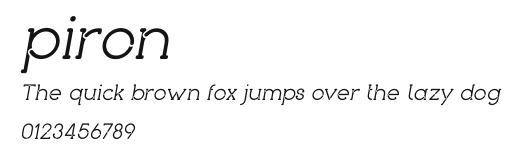
• Font Name: piron
• Full Font Name: piron-Italic
• PostScript Name: piron-Italic
About piron.otf
piron.otf is a modern, elegant sans-serif font designed for ultimate readability and visual harmony. Perfect for branding, headlines, web design, and print materials.